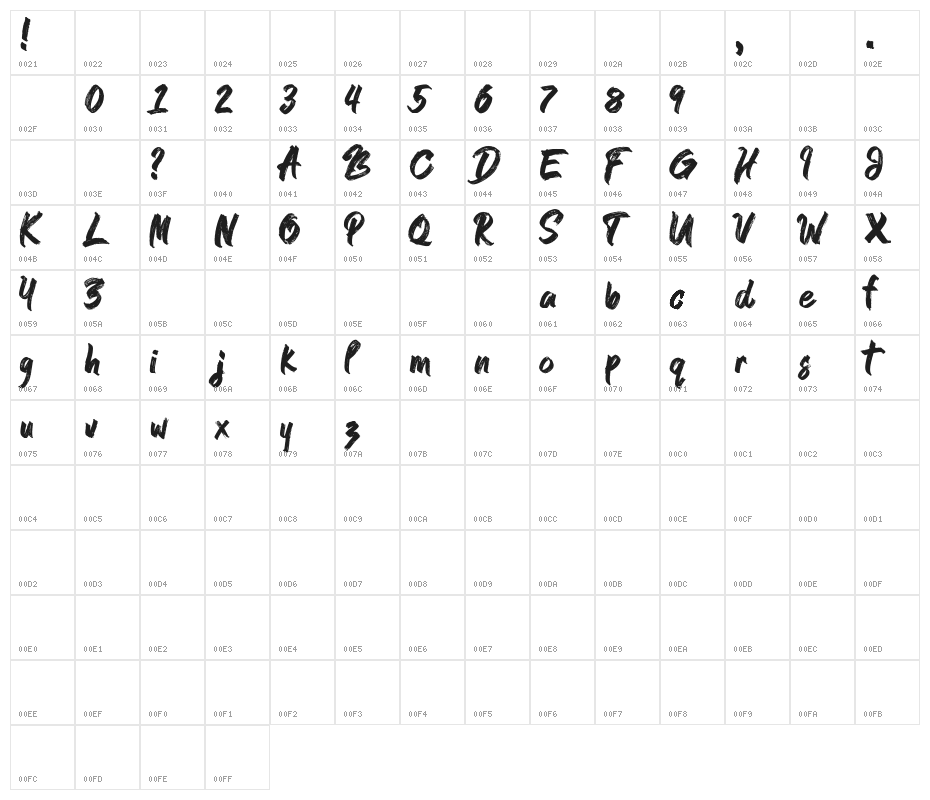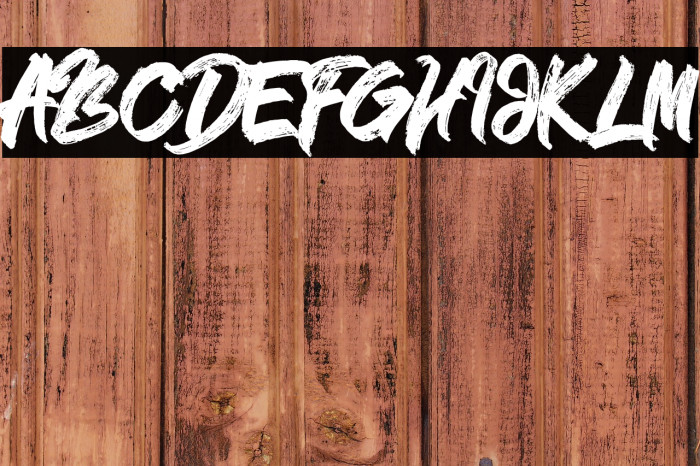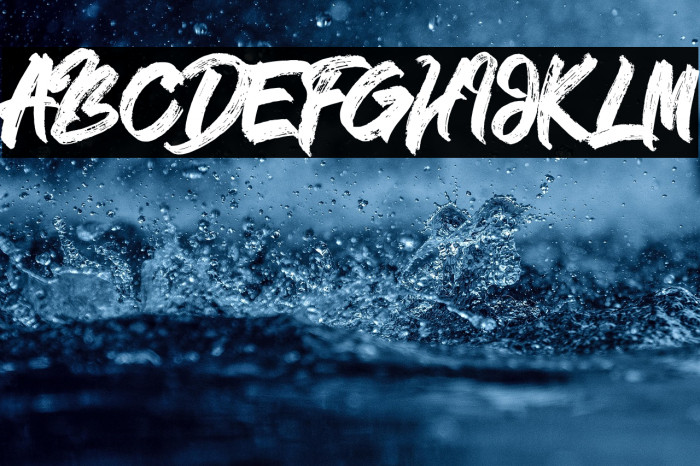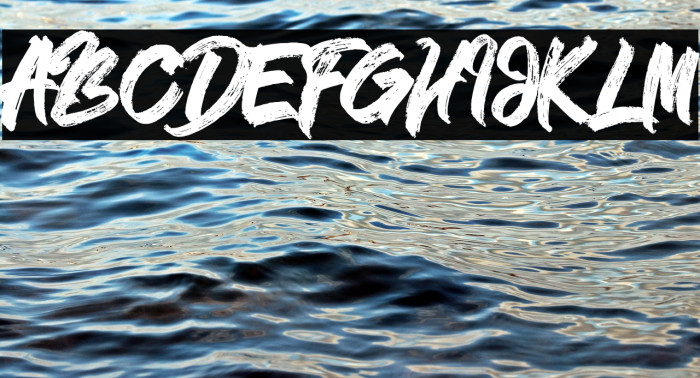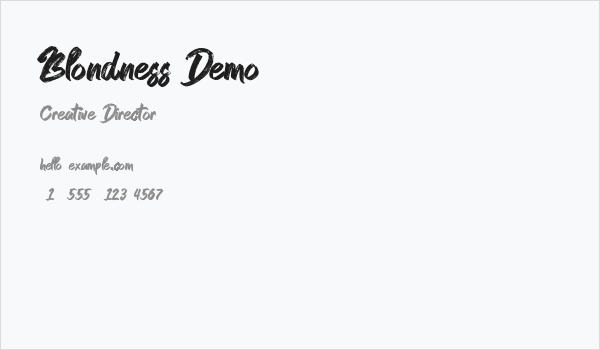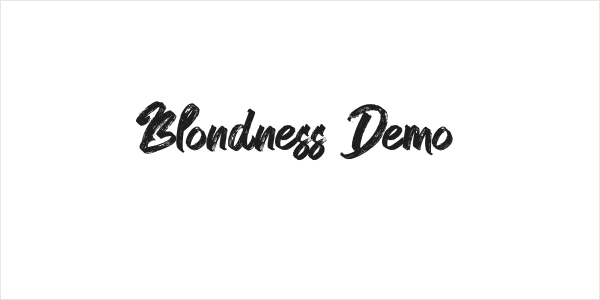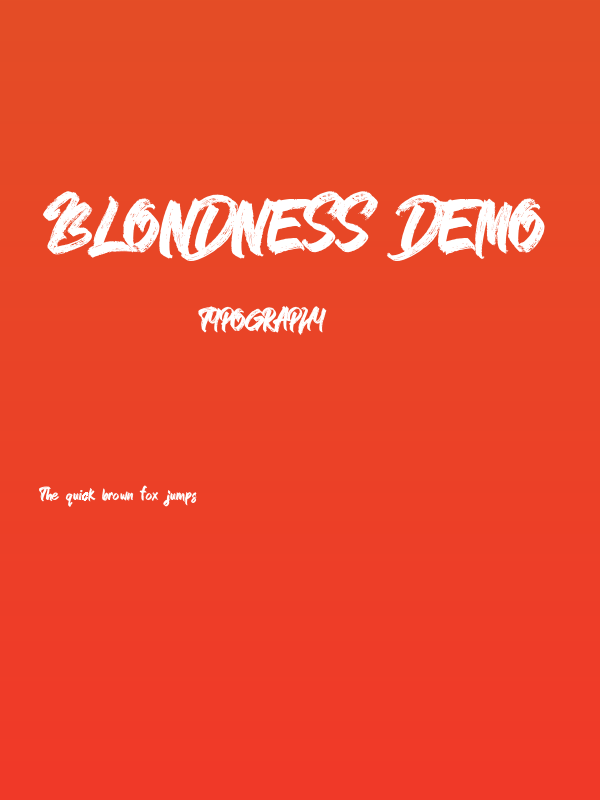
Blondness Demo Font
Blondness Demo Description
This font exudes a bold, expressive style with its brush-like strokes and dynamic movement. Each character is crafted with a sense of energy and spontaneity, reminiscent of hand-painted lettering. The uppercase letters are robust and commanding, while the lowercase letters maintain a cohesive flow. Numbers and special characters are equally dynamic, adding to the font's overall impact. The texture of the strokes gives it a raw, artistic feel, making it ideal for projects that require a personal touch or a statement piece.
| Proposed Projects | Ideal for posters, branding, album covers, and creative advertising that require a bold, artistic flair. |